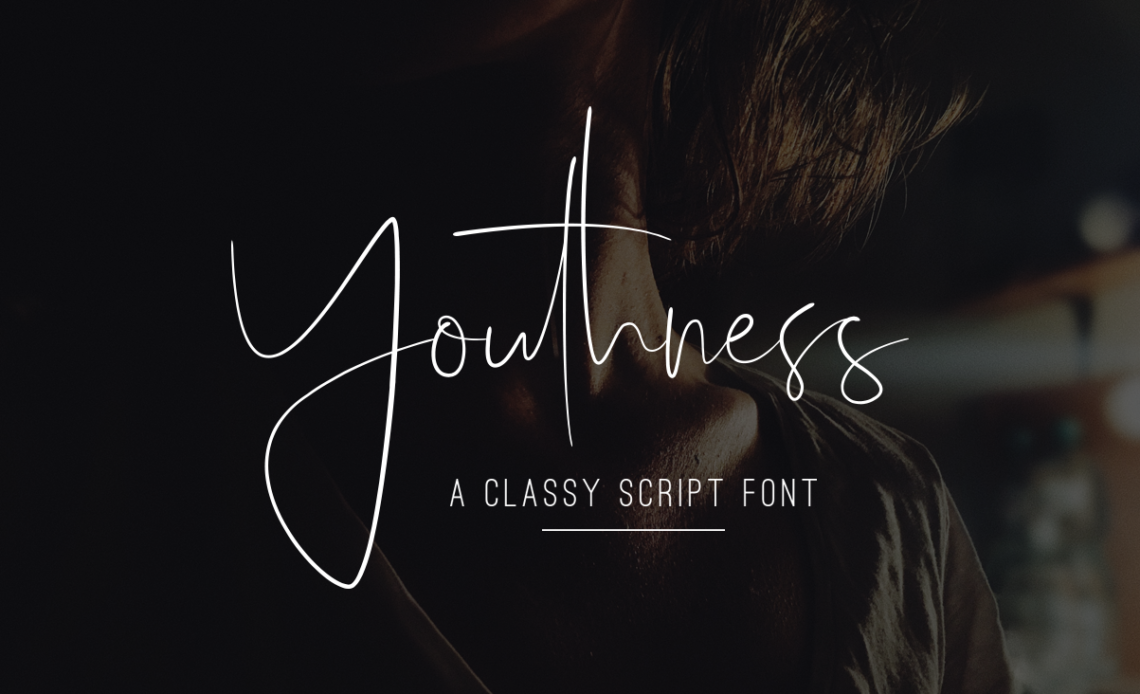
Unleash the Timeless Elegance of Youthness Font: A Journey of Beauty and Charm
In the realm of typography, few fonts capture the essence of femininity, grace, and timeless elegance quite like Youthness Font. This exquisite script font, crafted with meticulous care by the renowned Dharmas Studio, is a masterpiece that brings a touch of enchantment to any design project.
With its flowing lines, delicate curves, and captivating swashes, Youthness Font embodies the essence of modern minimalism, seamlessly blending classic beauty with contemporary style. Whether you're a seasoned designer or just starting your creative journey, this font is your perfect companion, guiding you effortlessly through the world of visual storytelling.
Step into a world where words dance across the page with effortless poise and charm. Youthness Font's versatility knows no bounds, lending its magic to a myriad of applications—from elegant wedding invitations and heartfelt love letters to sophisticated business cards and eye-catching social media posts. Its feminine touch adds a hint of allure to any project, transforming ordinary text into captivating works of art.
Embrace the Beauty of Imperfection: The Allure of Hand-Crafted Charm
At the heart of Youthness Font lies the allure of hand-crafted artistry. Each character bears the subtle nuances and imperfections that make it uniquely captivating. This organic aesthetic breathes life into your designs, evoking a sense of authenticity and warmth that resonates with your audience.
With Youthness Font, you can effortlessly create designs that exude a personal touch, as if each word was lovingly penned by your own hand. Its delicate strokes and graceful curves invite your readers to linger, savoring the beauty of every letterform.
Unlock the Endless Creative Possibilities: A Font for Every Occasion
Whether you're designing a chic fashion catalog, a captivating social media campaign, or a timeless wedding invitation, Youthness Font rises to the occasion with unmatched versatility. Its ability to seamlessly blend with various design styles makes it an indispensable tool in your creative arsenal.
From elegant serif fonts to bold sans serif typefaces, Youthness Font complements and enhances any visual composition. Its graceful presence adds a touch of sophistication to minimalist designs, while its playful charm breathes life into more whimsical projects. The possibilities are endless, limited only by your imagination.
Experience the Joy of Seamless Design: A Font That Flows Effortlessly
Using Youthness Font is a dream come true for designers of all levels. Its intuitive design ensures a seamless creative experience, allowing you to focus on expressing your unique vision without the hassle of technical hurdles.
Whether you're working with text, logos, or any other design element, Youthness Font responds beautifully, adapting effortlessly to your creative demands. Its smooth flow and impeccable kerning create a visually harmonious experience, ensuring that your designs look polished and professional.